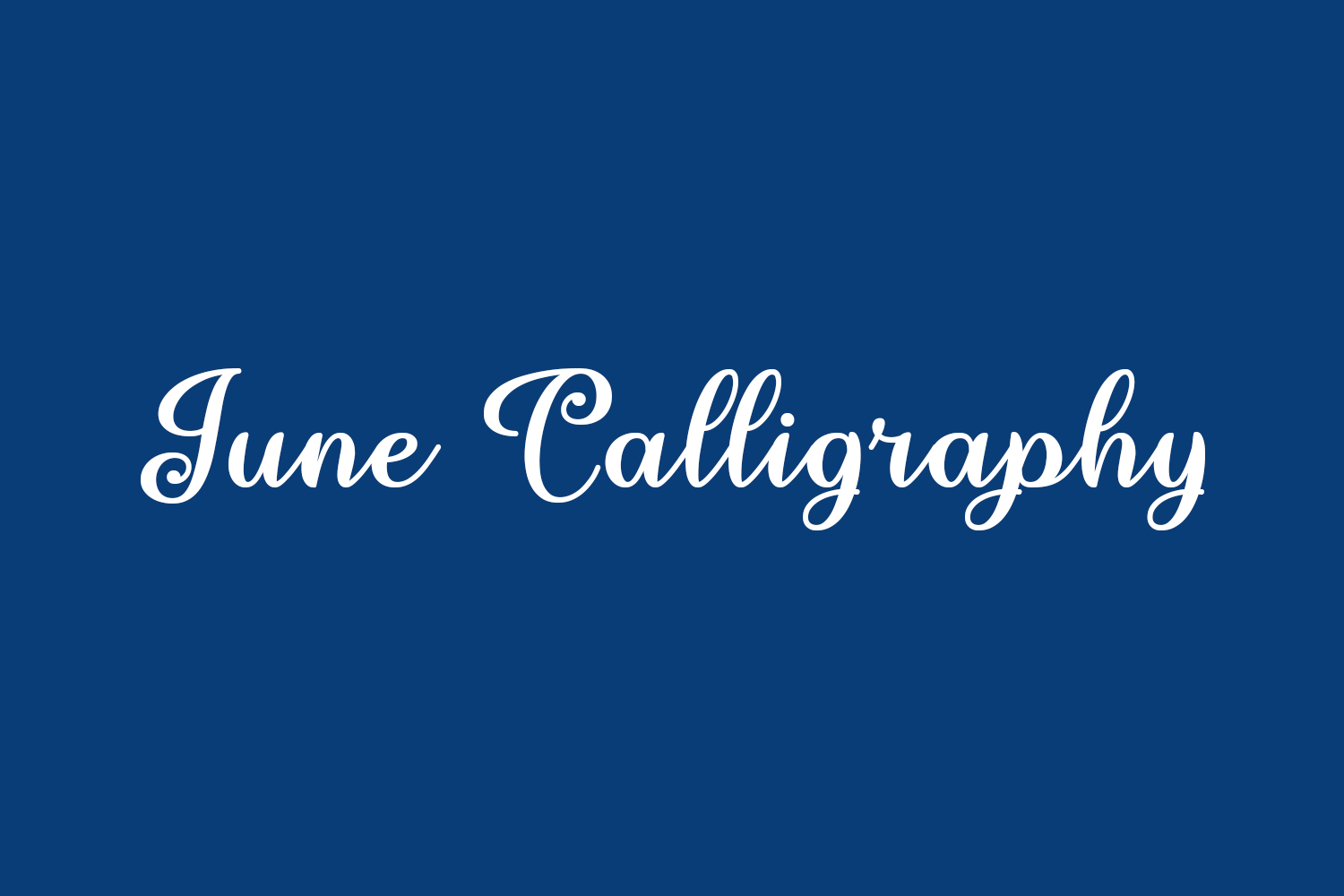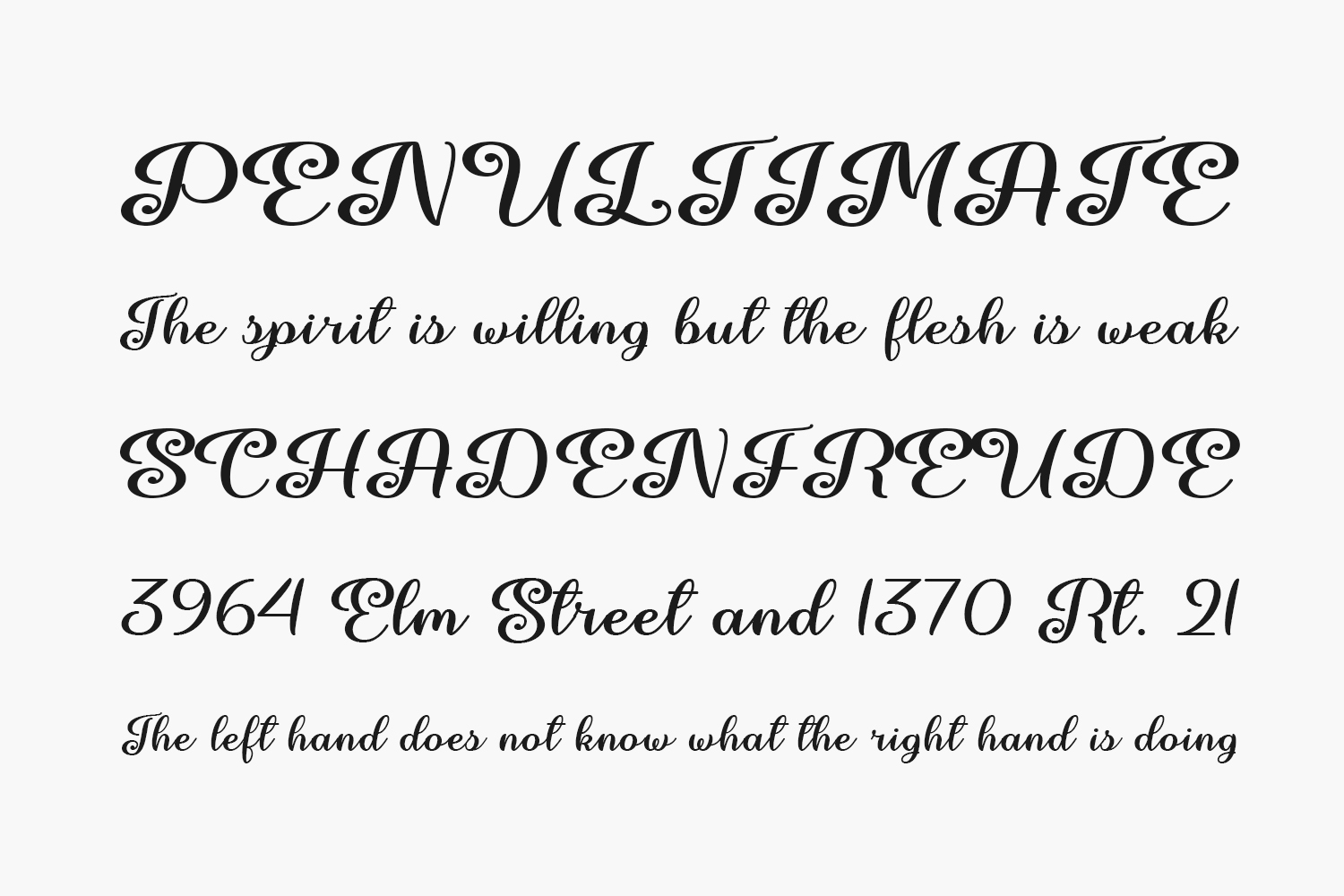
June Calligraphy Free Font is an elegant, scripted typeface that will add fancy flair to your projects all year round! Great for wedding invitations, product labels, calendars & planners, logos and so much more. June Calligraphy Free Font was designed by Misti’s Fonts and is free for personal use only. Please purchase the full version for commercial use.